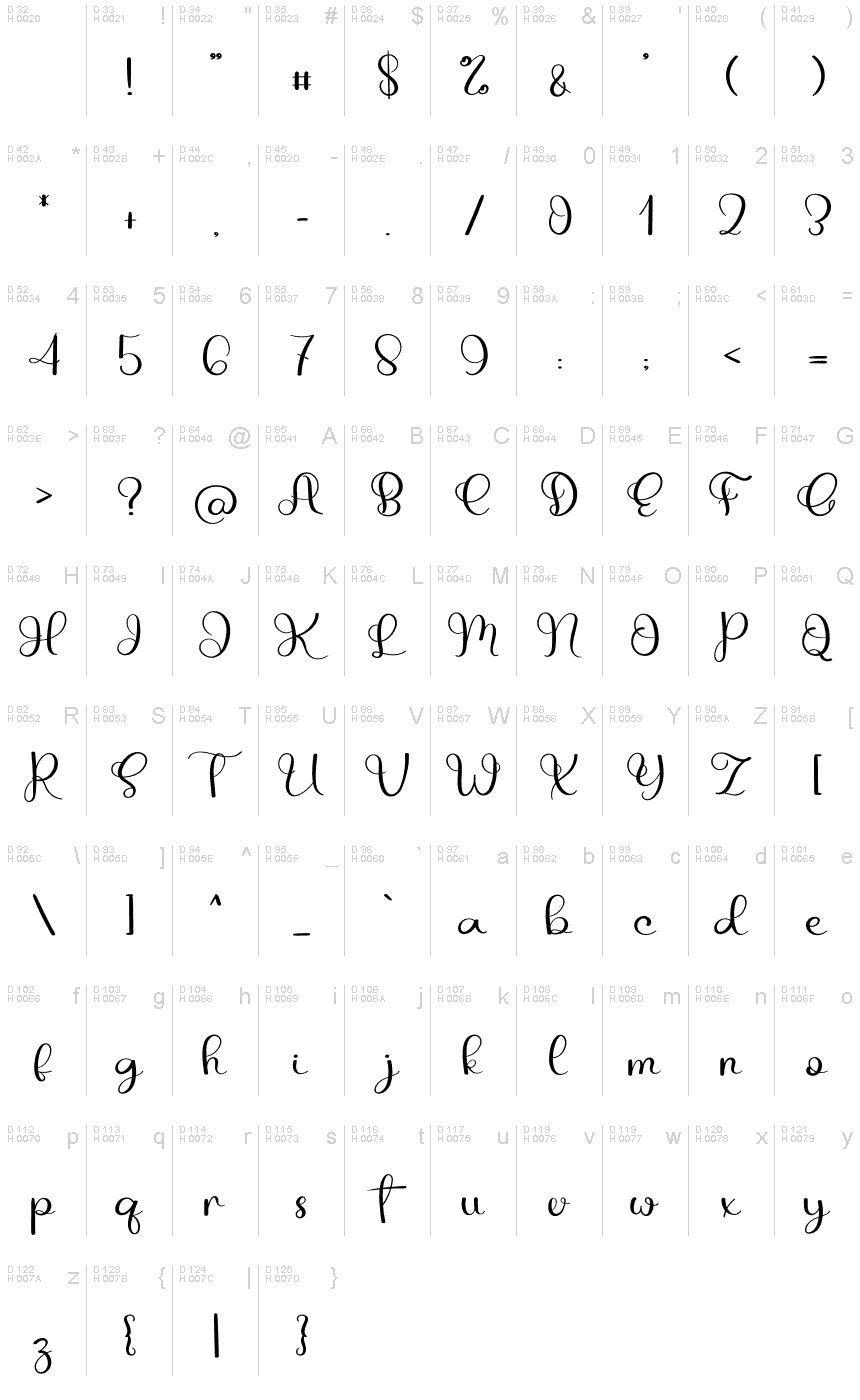
Spooky Garden
Spooky Garden is a chic and sophisticated handwritten font designed by Erik Studio. This original look will appeal to a wide range of crafty ideas, from letterheads and titles to stationery.